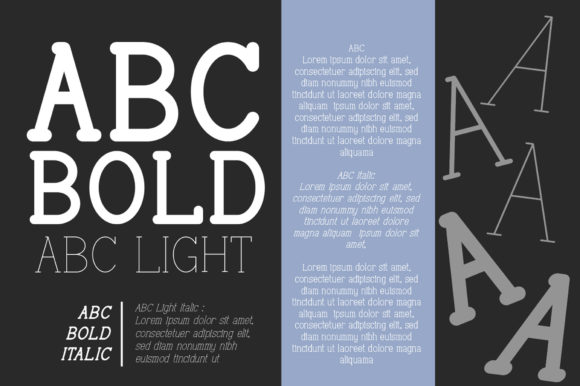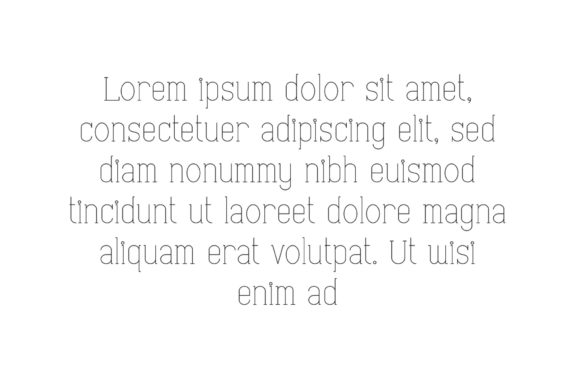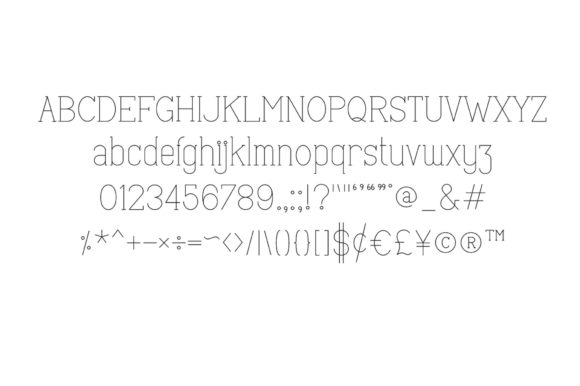
Discover the Elegance of ABC Light Font: A Versatile Serif Font for Every Project
In the realm of typography, the right font can elevate your design, making it stand out and communicate your message more effectively. For designers, crafters, and anyone looking to add a touch of sophistication to their projects, ABC Light Font is a gem worth exploring. This clean and simple serif font has gained popularity for its versatility, making it an ideal choice for a wide range of applications, from writing books and web designs to business cards and beyond.
What is ABC Light Font?
ABC Light Font is characterized by its clean lines and simple serif design. The term “serif” refers to the small lines or flourishes at the ends of the letters, which in the case of ABC Light, are subtle yet distinctive. This font family is designed to be highly legible, making it perfect for both digital and print media. Its elegance lies in its simplicity, allowing it to complement a variety of design themes without overpowering them.
Key Features of ABC Light Font
- Clean and Simple Design: The font’s uncluttered design ensures that your text is easy to read, making it suitable for lengthy content such as books and articles.
- Serif Details: The subtle serif details add a touch of class and sophistication, making it ideal for projects that require a professional look.
- Versatility: Whether you’re working on a website, a business card, or a book, ABC Light Font adapts seamlessly, ensuring your design looks great across different mediums.
Use Cases for ABC Light Font
The versatility of ABC Light Font means it can be used in a multitude of projects. Here are some popular applications:
- Book Publishing: For authors and publishers looking for a font that is easy to read and adds a touch of elegance to their book designs, ABC Light is an excellent choice.
- Web Design: In the digital realm, ABC Light Font can enhance the readability and aesthetic of your website, making it more engaging for visitors.
- Business Cards: Make a lasting impression with business cards that feature a clean, professional font. ABC Light ensures your contact information is presented elegantly.
- Graphic Design Projects: From brochures and flyers to posters and banners, this font can be used in a variety of graphic design projects to add a sophisticated touch.
Tips for Using ABC Light Font Effectively
To get the most out of ABC Light Font, consider the following tips:
- Pair with Complementary Fonts: While ABC Light is versatile on its own, pairing it with a sans-serif font can create a visually appealing contrast.
- Adjust Line Spacing: Ensure your text is easy to read by adjusting the line spacing. This is particularly important for body text in books and articles.
- Consider Font Size: Make sure the font size is appropriate for the medium. For instance, a larger size may be needed for headings, while a smaller size can work for body text.
ABC Light Font is a valuable addition to any designer’s toolkit. Its clean and simple serif design makes it a versatile choice for a wide range of projects. Whether you’re creating a book, designing a website, or crafting business cards, ABC Light Font can add a touch of elegance and professionalism to your work. With its ease of use and adaptability, it’s an excellent option for anyone looking to enhance their designs with a sophisticated yet readable font.